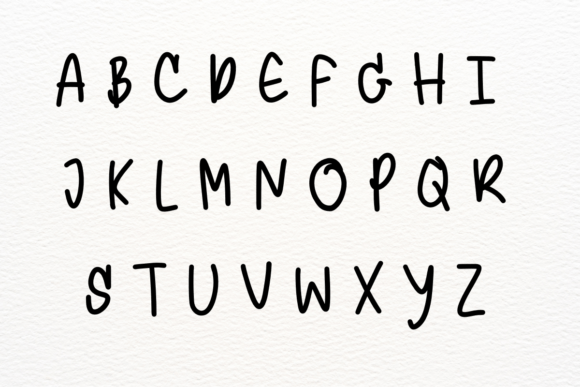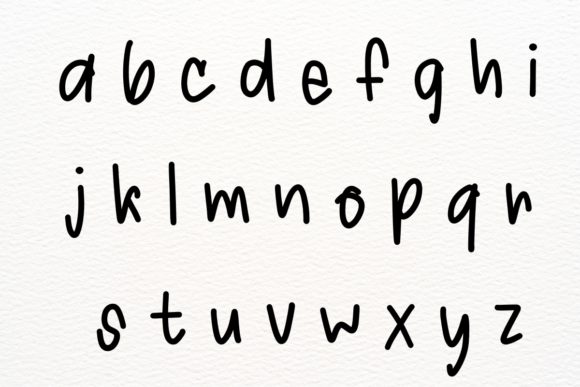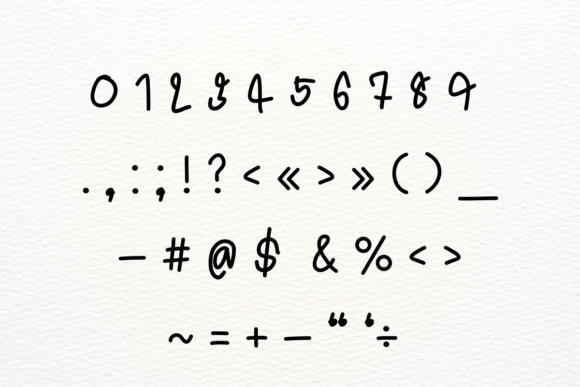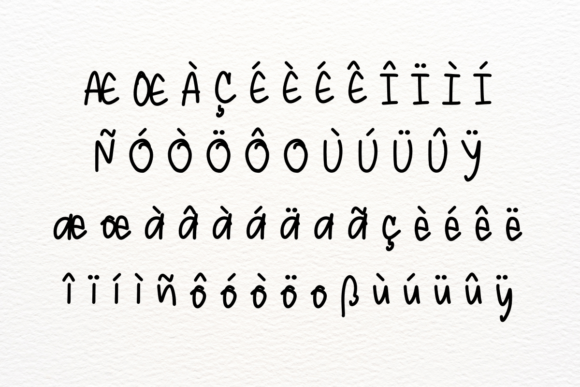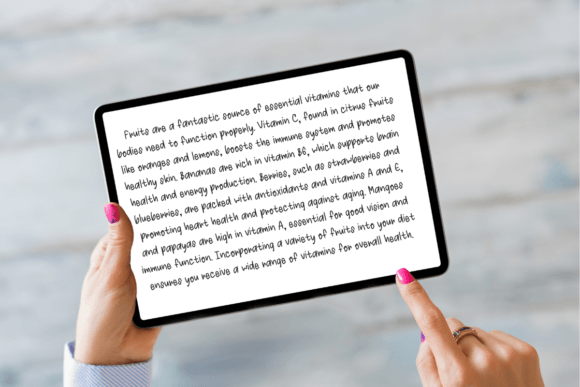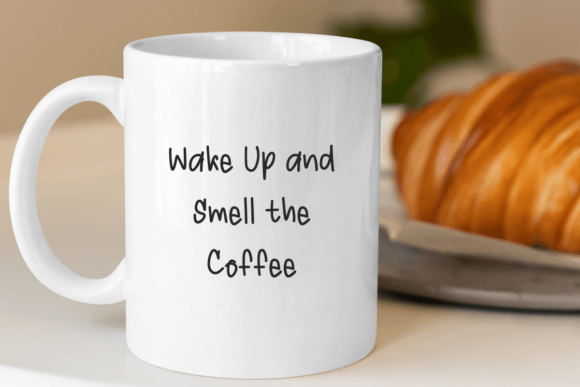
Unleash Your Creativity with the Fancymagical Font
Have you ever found yourself lost in the world of design, searching for that perfect font to bring your ideas to life? I know I have. And then, it happens – a spark of inspiration strikes, and you stumble upon a font that makes your heart skip a beat. For me, that font was the Fancymagical Font, a delightful addition to any typography collection.
This enchanting font captures the essence of handwritten elegance with its flowing curves and playful strokes, making it perfect for adding a touch of magic to your projects. Whether you’re designing invitations, greeting cards, quotes, or branding, the Fancymagical Font brings a sense of warmth and personal touch to every design. As a designer, you’ll love incorporating this versatile font into your work to create unique and captivating visual experiences.
Fancymagical Font Key Features
- Font Family: Fancymagical Font offers a variety of font styles, including bold, italic, and regular.
- Unique Characteristics: Fancymagical Font features swashes, flourishes, and other decorative elements, making it ideal for creative and whimsical designs.
Fancymagical Font Review
Overall, I’m quite impressed with the Fancymagical Font. ✨ It’s clear that the designer put a lot of effort into creating a unique and whimsical font. The font’s playful feel is perfect for any project that needs a touch of magic.
The font’s strengths include:
- 🌟 Beautifully crafted characters that exude a sense of wonder
- ✨ Smooth and consistent line weights that make it easy to read
- 🔮 A wide range of language support, including many non-Latin scripts
However, there are a few limitations that I’ve noticed:
- ⚠️ Some characters may be difficult to read in certain contexts, especially at small font sizes
- ⚠️ The font may not be suitable for projects that require a more formal or serious tone
Overall, I think the Fancymagical Font is a great choice for any project that needs a touch of magic and whimsy. While it may not be perfect for every situation, I believe it’s a valuable addition to any designer’s toolkit.
Tips for Getting the Most Out of Fancymagical Font
Experiment with different font sizes and styles to create a unique and eye-catching look.
Pair Fancymagical Font with other decorative fonts or graphics to add visual interest.
Use Fancymagical Font in headings and titles to draw attention and create a sense of hierarchy.
Fancymagical Font is ideal for:
Creative projects, such as invitations, posters, and social media graphics.
Wedding and event invitations, where a touch of whimsy and romance is desired.
Branding and marketing materials, where a unique and eye-catching font can help differentiate a business.